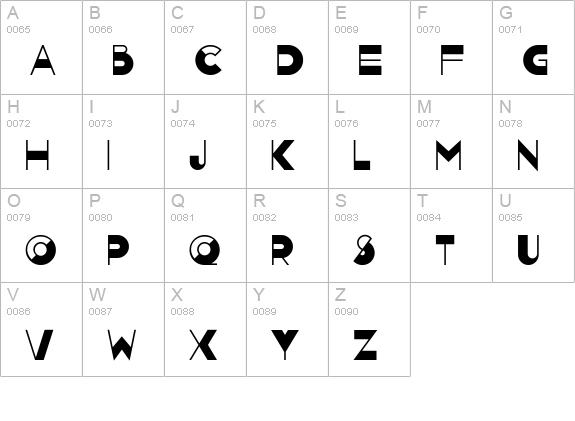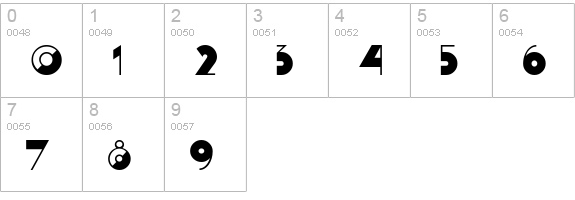
Nightcap Font Details
Nightcap font is a stylish and modern typeface that exudes elegance and sophistication. Its sleek lines and sharp edges give it a contemporary feel, making it perfect for a wide range of design projects. Whether you're creating a logo, poster, or website, Nightcap font will add a touch of class to your work. What's even better is that Nightcap font is completely free to download at FontsMarket.com. Yes, you read that right - this premium font can be yours at no cost. Don't miss out on this fantastic opportunity to elevate your designs with the sleek and chic Nightcap font. Download it now and start creating stunning visuals that will leave a lasting impression.